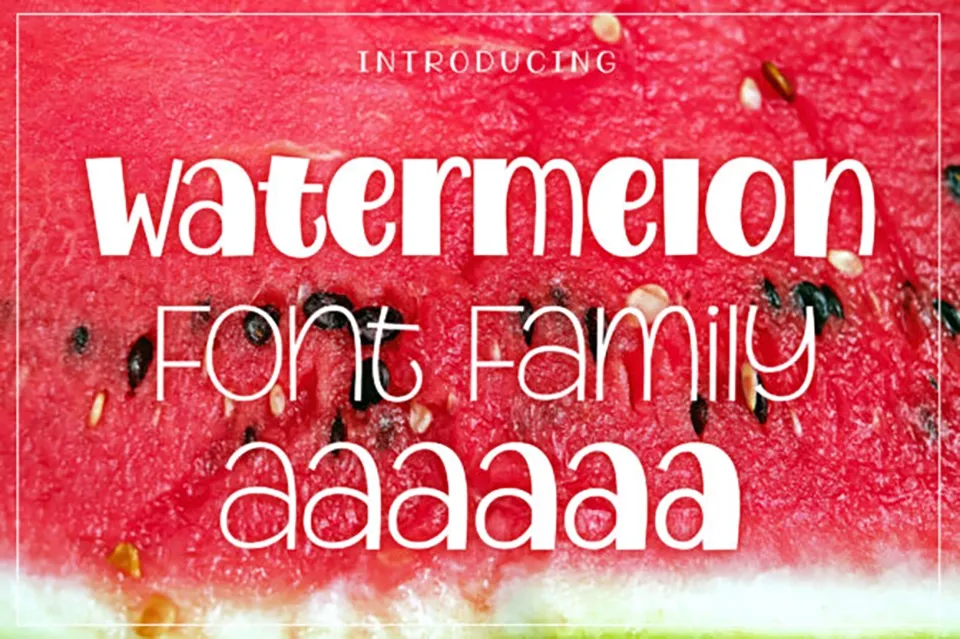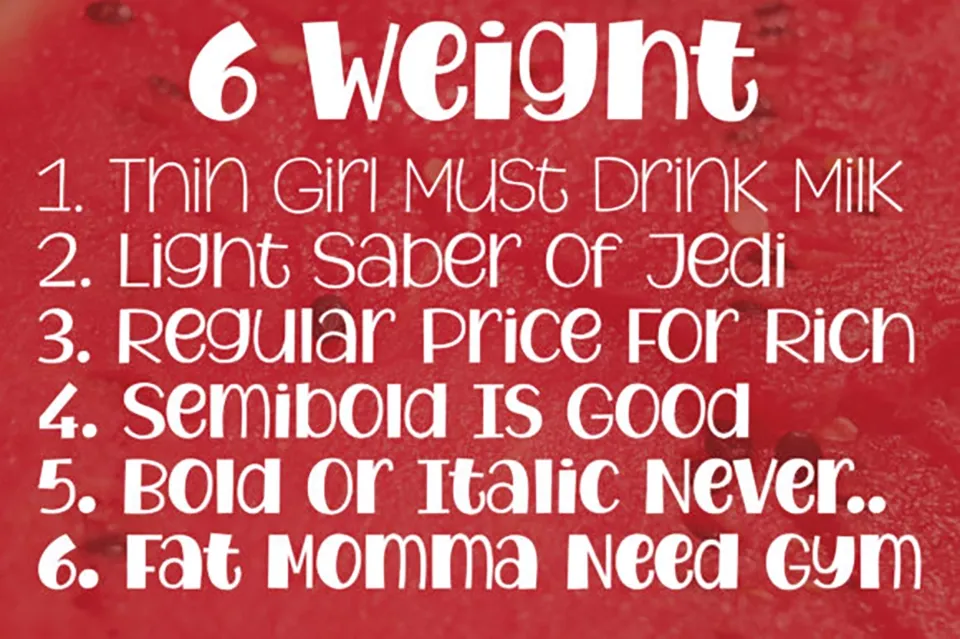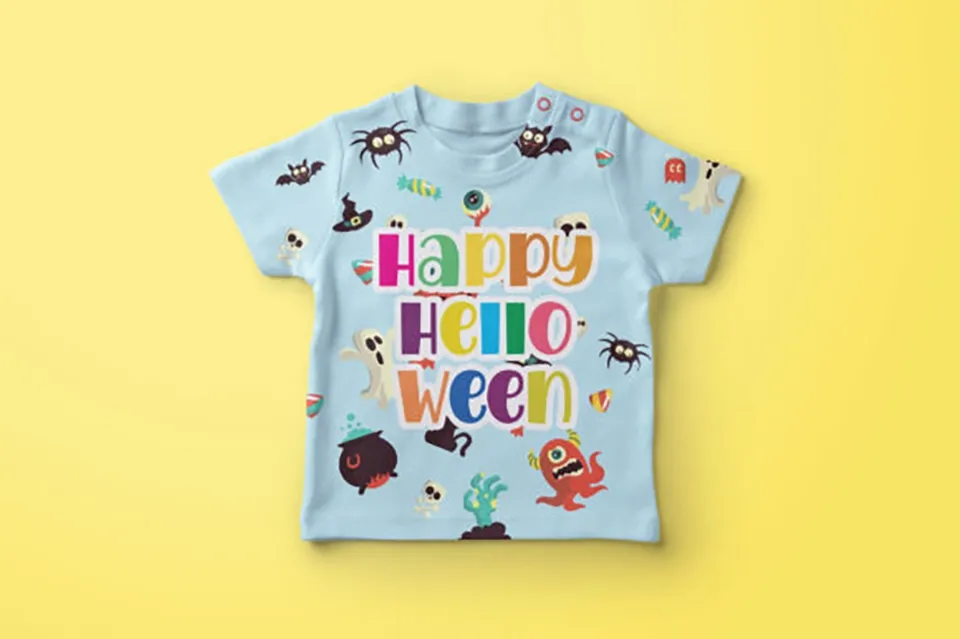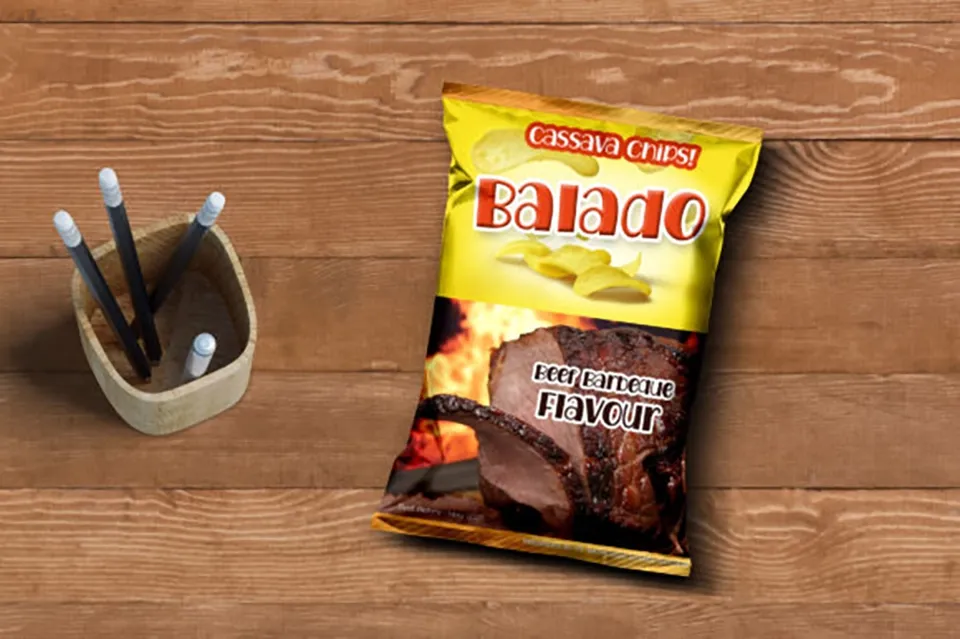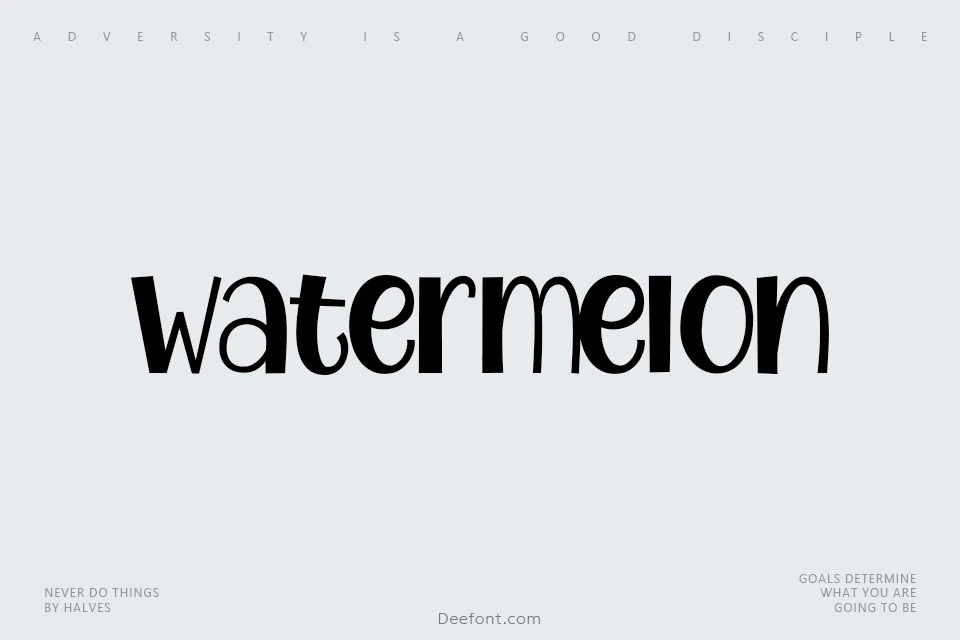
Watermelon Display Font
Watermelon Display Font is a fresh, cool, and sweet typeface with a unique vibe. This fun and charming font embodies playfulness and originality, often featuring bold, comic-like looks. Containing over 230 glyphs and characters, it provides ample creative options. The Watermelon font family often includes various styles, ligatures, and stylistic sets, making it versatile for different design projects. It’s an excellent choice for children’s themes, branding, packaging, headlines, or any design needing a cheerful and bold flavor inspired by its unique style. It’s compatible across major systems and available in standard formats.